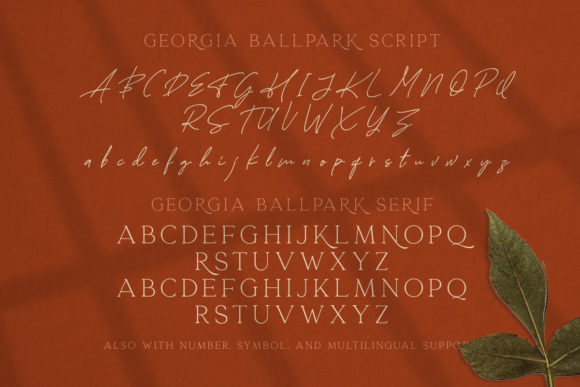
Georgia Ballpark Font
Georgia Ballpark is a spectacular duo font (serif and script). Incredibly elegant and versatile, this font fits a wide pool of designs, elevating them to the highest levels. Add this font to your favorite creative ideas and notice how it makes them come alive!